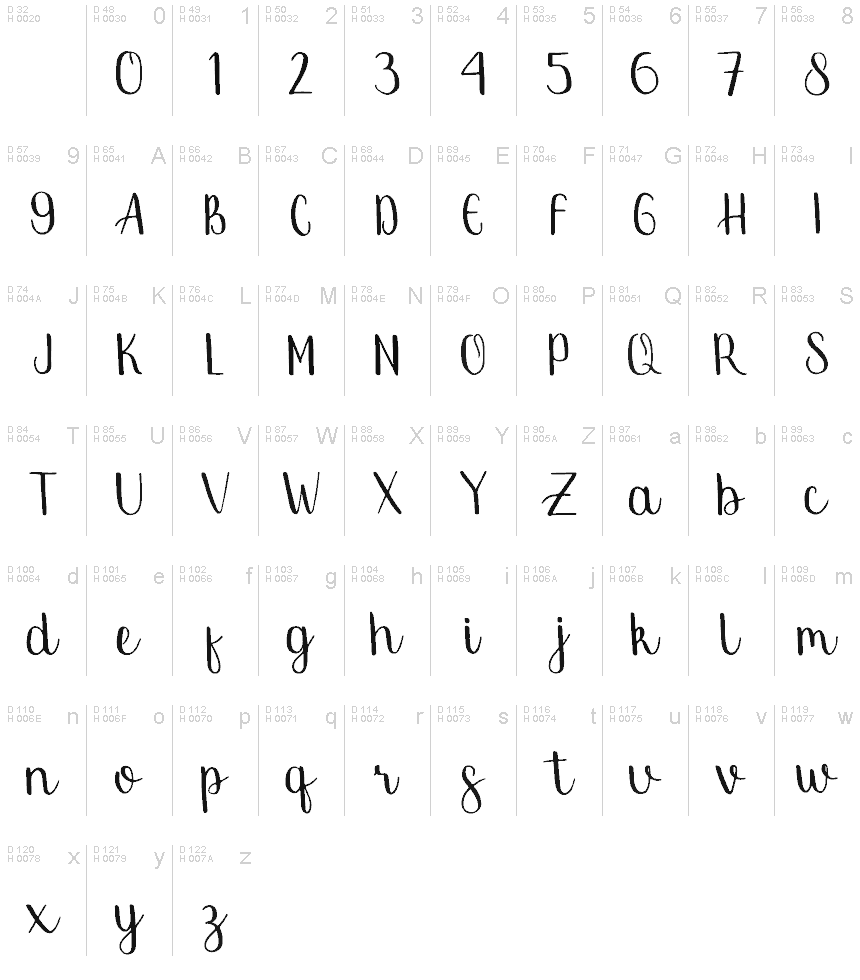
Smally Rose Free
Smally Rose - a brush script font created with a medium thickness pen brush that will make your design look more beautiful and soft.
Smally Rose - will be perfect for magazines, business cards, invitations, packaging, t-shirt, and all designs that require beautiful and soft elements.
- Ligature
- Swash